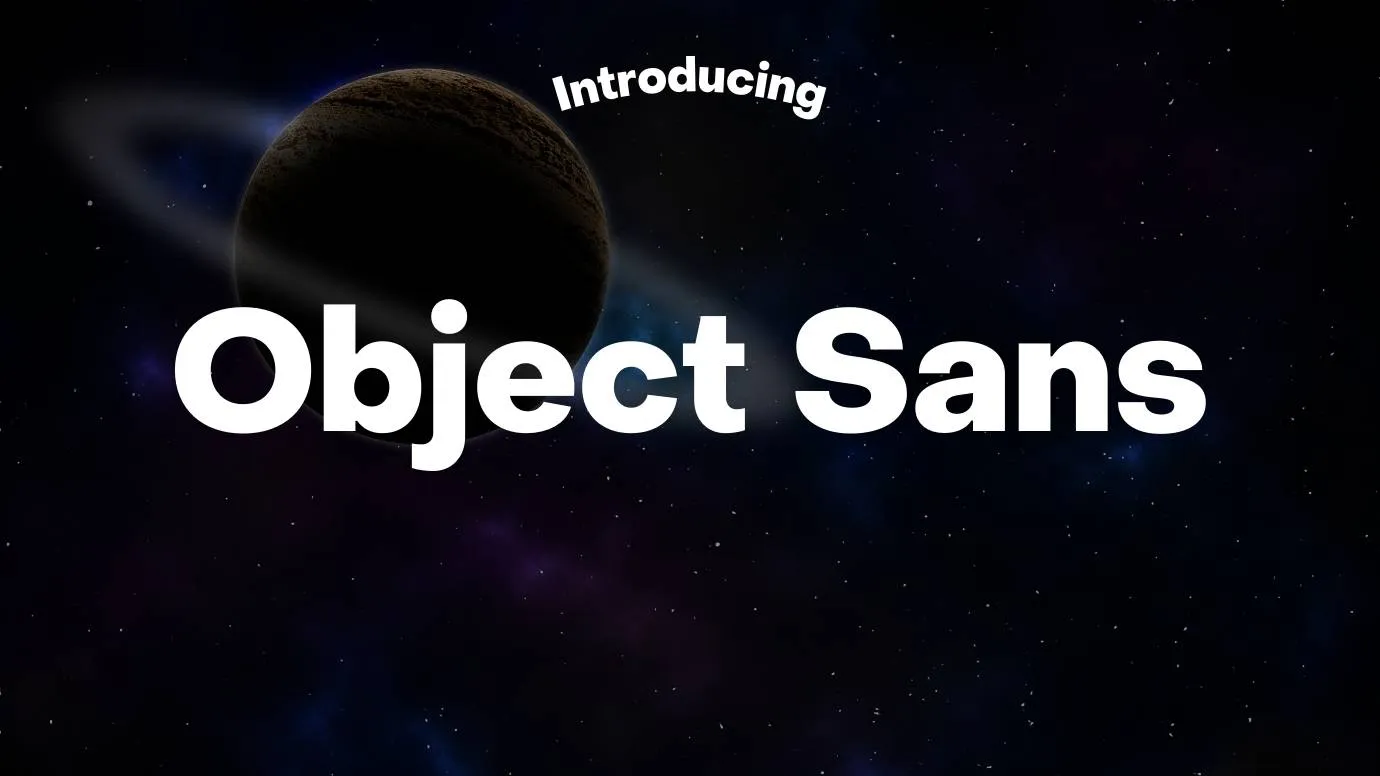
Object Sans Font Family is a famous and unique geometric sans serif typeface known as Object Sans Font. This classic typography also comes with many styles that are created by using its weights.
Object Sans Font
NameObject Sans Font
TypeSans Serif
DesignerAlex Slobzheninov